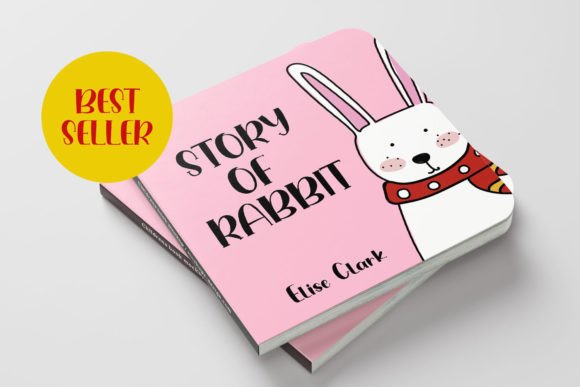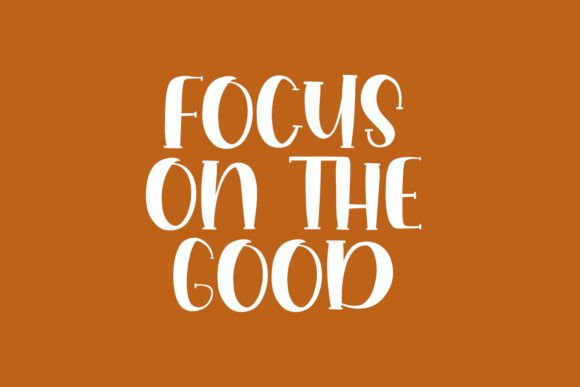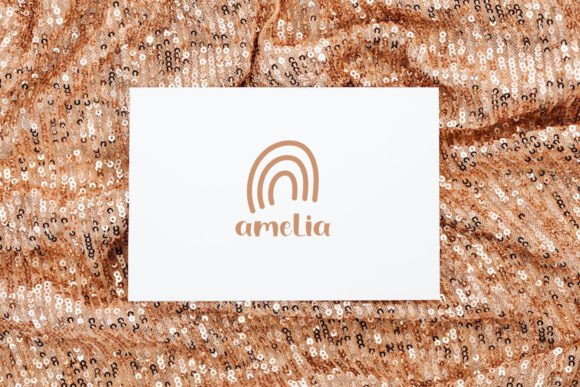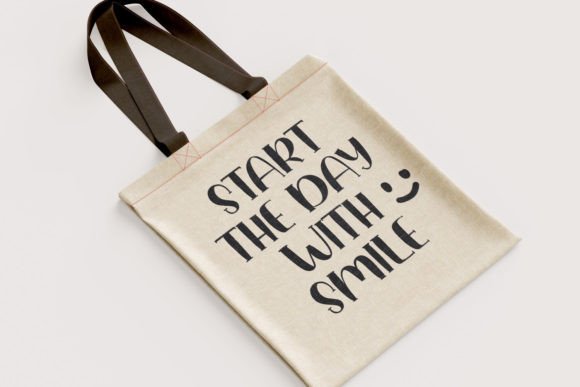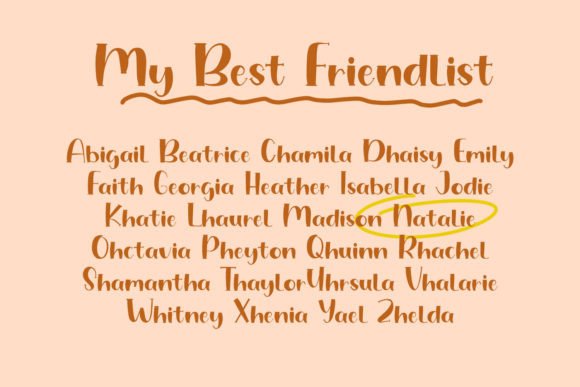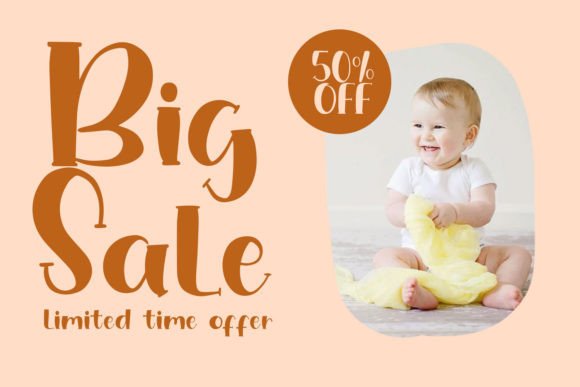
Dance Butter Font: Adding a Playful Touch to Your Designs
Are you looking for a font that can add a fun and playful visual experience to your projects? Look no further than the Dance Butter Font. This handwritten font is perfect for designers and crafters who want to create a special touch with lovely typography, making their work stand out from the crowd.
What is Dance Butter Font?
Dance Butter Font is a playful handwritten font that is designed to bring a touch of whimsy and fun to your designs. Its unique and charming style makes it perfect for a wide range of creative endeavors, from logos and titles to watermarks on photography and album covers.
Features of Dance Butter Font
- Playful and Handwritten Style: Dance Butter Font has a playful and handwritten style that adds a personal touch to your designs.
- Unique and Charming: The font’s unique and charming style makes it perfect for designers and crafters who want to create something special.
- Versatile: Dance Butter Font is versatile and can be used for a wide range of design projects, from logos and titles to watermarks on photography and album covers.
- Easily Readable: The font is easily readable, making it perfect for use in body text, headings, and titles.
Uses of Dance Butter Font
Dance Butter Font is perfect for any creative endeavor that requires a playful and fun visual experience. Here are some of the many uses of this amazing font:
- Logos: Use Dance Butter Font to create a unique and memorable logo for your business or brand.
- Titles and Headings: Add a playful touch to your titles and headings with Dance Butter Font.
- Watermarks on Photography: Use Dance Butter Font to add a watermark to your photographs and make them stand out.
- Covers and Album Covers: Create eye-catching covers and album covers with Dance Butter Font.
- Branding and Corporate Identity: Use Dance Butter Font to create a playful and fun brand identity for your business.
- Weddings and Events: Add a touch of whimsy and fun to your wedding and event designs with Dance Butter Font.
- Magazines and Publications: Use Dance Butter Font to add a playful touch to your magazine and publication designs.
- Business Cards: Create unique and memorable business cards with Dance Butter Font.
- Quotes and Inspirational Messages: Use Dance Butter Font to create inspiring and motivational quotes and messages.
Why Choose Dance Butter Font?
There are many reasons why you should choose Dance Butter Font for your design projects. Here are a few:
- Unique Style: Dance Butter Font has a unique and charming style that will make your designs stand out.
- Easily Readable: The font is easily readable, making it perfect for use in body text, headings, and titles.
- Versatile: Dance Butter Font is versatile and can be used for a wide range of design projects.
- Fun and Playful: The font adds a fun and playful touch to your designs, making them more engaging and interesting.